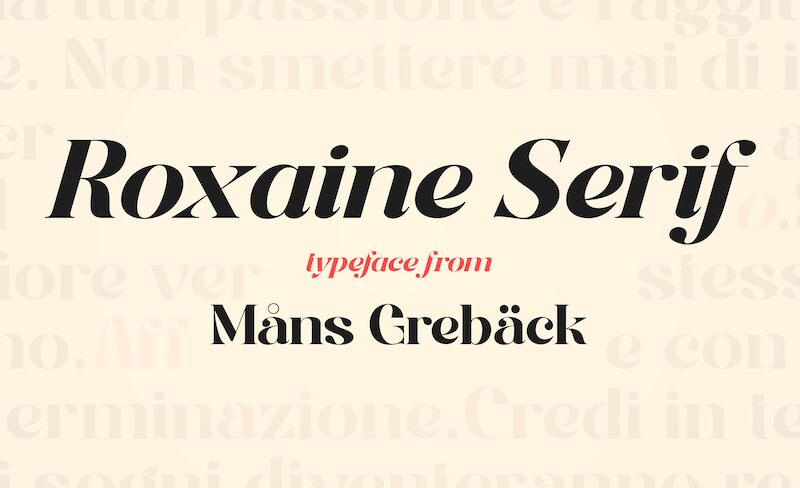
Roxaine Serif font family by Måns Grebäck consists of two atmospheric font styles. This free resource has been designed with a classic and elegant touch inspired by the Renaissance period. The flowing strokes and subtle curvings exude class, sophistication, and a modern flair. An upscale font with refined features, Roxaine Serif competes with heavily price-tagged fonts by delivering a professional design no matter the project it is used in.
This tool is highly versatile. It easily goes in branding, photography, and videography projects, especially those with a classic vibe. Titles and headlines in magazines, brochures, and publications are also viable suggestions. Other ideas include posters, flyers, confirmation invitations, business cards, app names, portfolio presentations, official correspondence, and documents of all sorts and formats.
Roxaine Serif is a bold yet elegant serif typeface that strikes a perfect balance between classical tradition and contemporary sharpness. Its high contrast strokes and distinctive serifs provide a sophisticated presence, while the flowing curves make it approachable and full of personality.